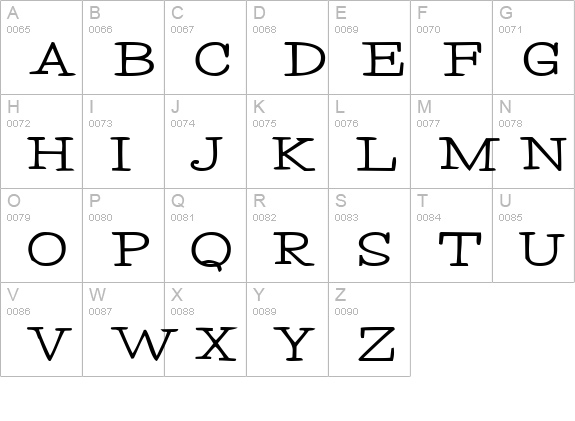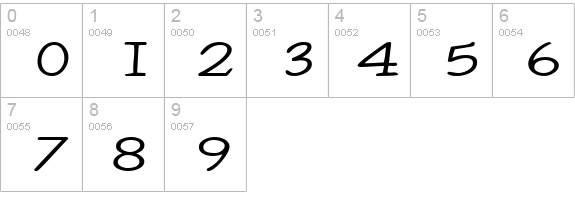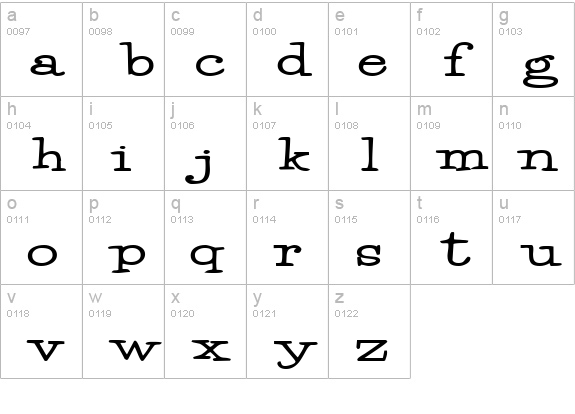
ReigleSSK Bold Font Details
ReigleSSK Bold is a strong, high-contrast variant in the ReigleSSK typeface family \xE2\x80\x94 well suited to headlines, attention-grabbing titles, and strong calls-to-action.
ReigleSSK Bold font is a striking and powerful typeface that commands attention with its bold and confident design. With its thick and robust letterforms, this font exudes a sense of strength and authority, making it perfect for headlines, titles, and any design project that requires a strong visual impact. What sets ReigleSSK Bold font apart is not just its boldness, but also its versatility. It can be used in a variety of design contexts, from advertising materials to website headers, from posters to packaging. Its clean and well-defined lines ensure legibility even at smaller sizes, making it suitable for both print and digital media. But what truly sets ReigleSSK Bold font apart is the fact that it is freely available to download at FontsMarket.com. Yes, you read that right - this incredible font can be yours without spending a dime. FontsMarket.com is a trusted source for high-quality fonts, and they are offering ReigleSSK Bold font as a free download, allowing designers, creators, and enthusiasts to access its bold and impactful aesthetic without any cost. So, why wait? Enhance your designs, captivate your audience, and make a lasting impression with ReigleSSK Bold font. Download it for free at FontsMarket.com and let your creativity soar.